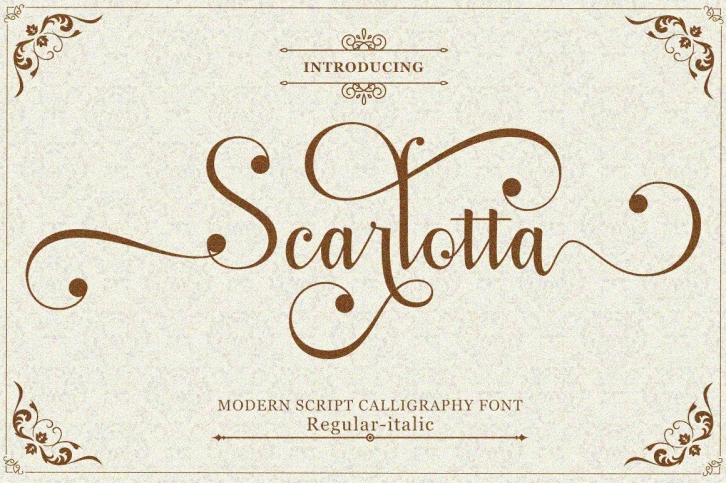
Scarlotta is a calligraphic script font that comes with beautiful alternate characters. copper calligraphy mix in handlettering style. Designed to convey an elegant style. Scarlotta is attractive because it is subtle, clean, feminine, sensual, glamorous, simple and very easy to read. Its classic style is perfect to apply to all kinds of formal items such as invitations, labels, menus, logos, fashion, make up, stationery, letterpress, romantic novels, magazines, books, greeting/wedding cards, packaging, labels.
Scarlotta has 489+ glyphs and 270 alternate characters. including multiple language support. It features OpenType with alternative styles, binders and character swashes, which allows you to mix and match letter pairs to suit your design, as well as a touch of ornament to make this font look elegant.